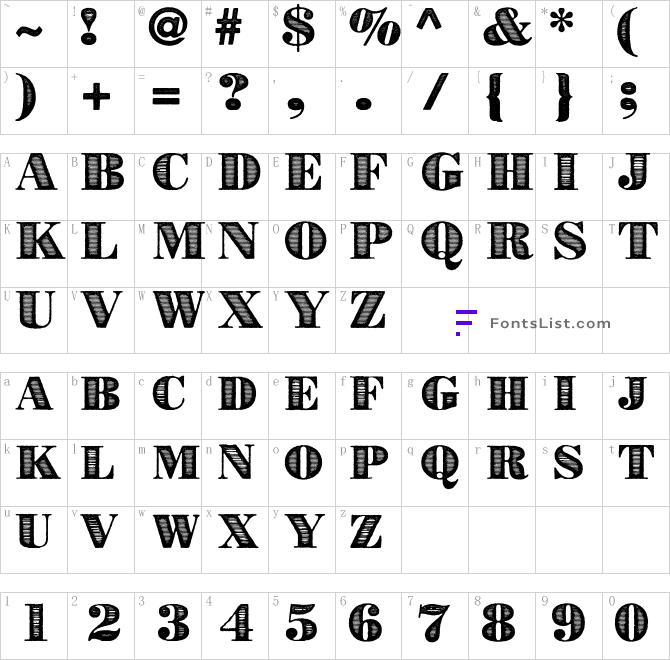
- Font Name:Bad Guy Black
BadGuyBlack.otf is a very beautiful artistic font, BadGuyBlack.otf is widely used in the design and printing of various books and pictures,BadGuyBlack.otf has a strong visual impact,BadGuyBlack.otf is a commonly used font in newspapers, magazines and books, and is used in posters, e-commerce Poster design, store design, logo design, font design and other fields.BadGuyBlack.